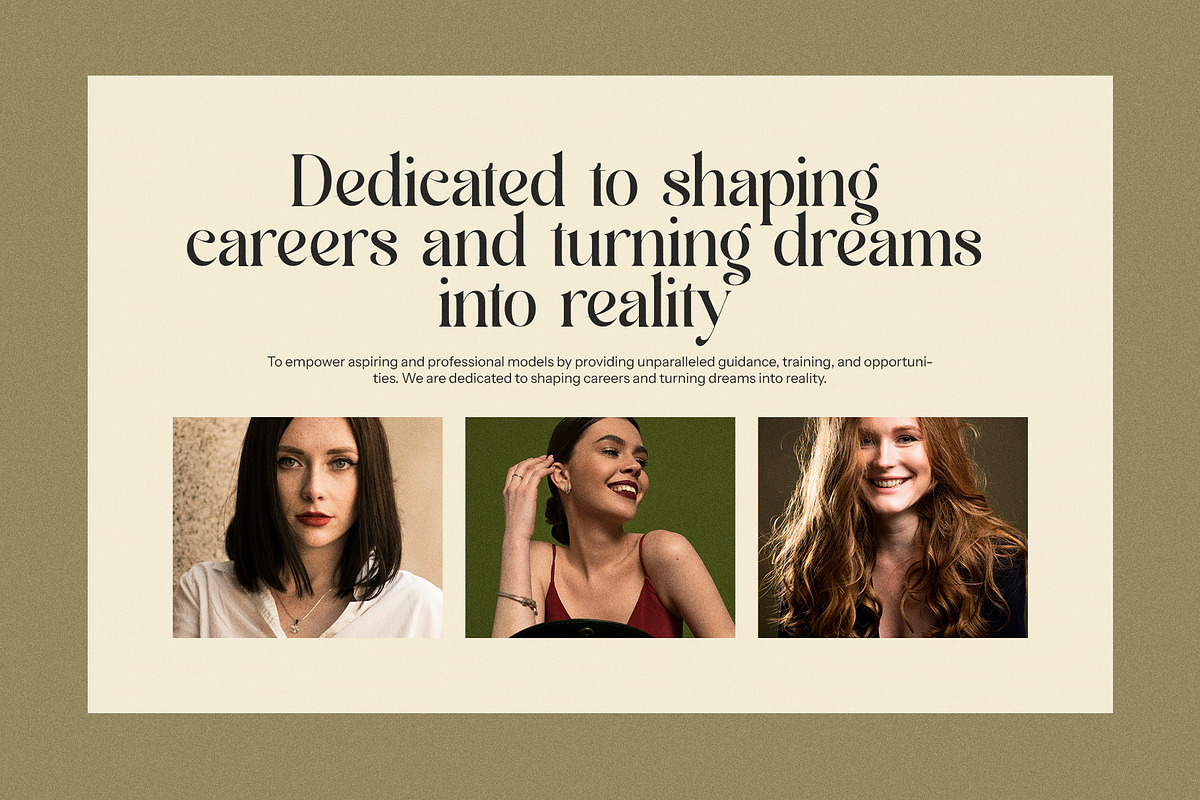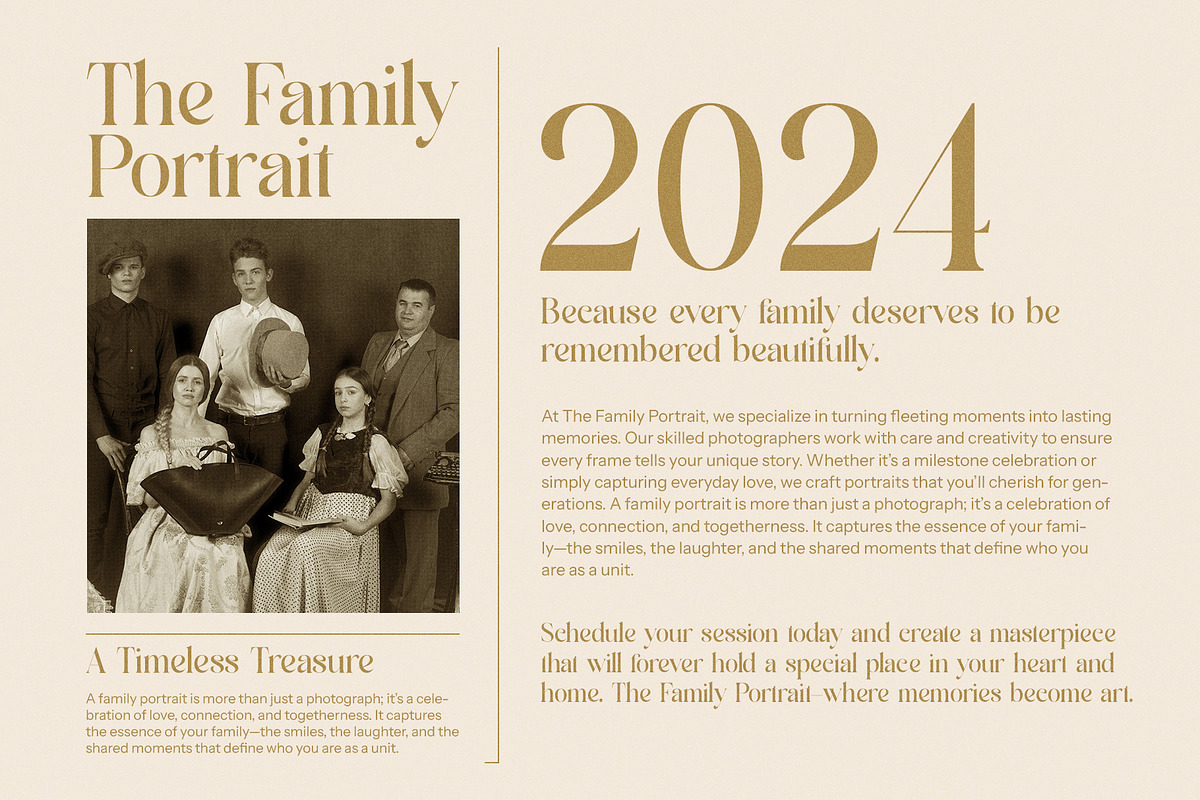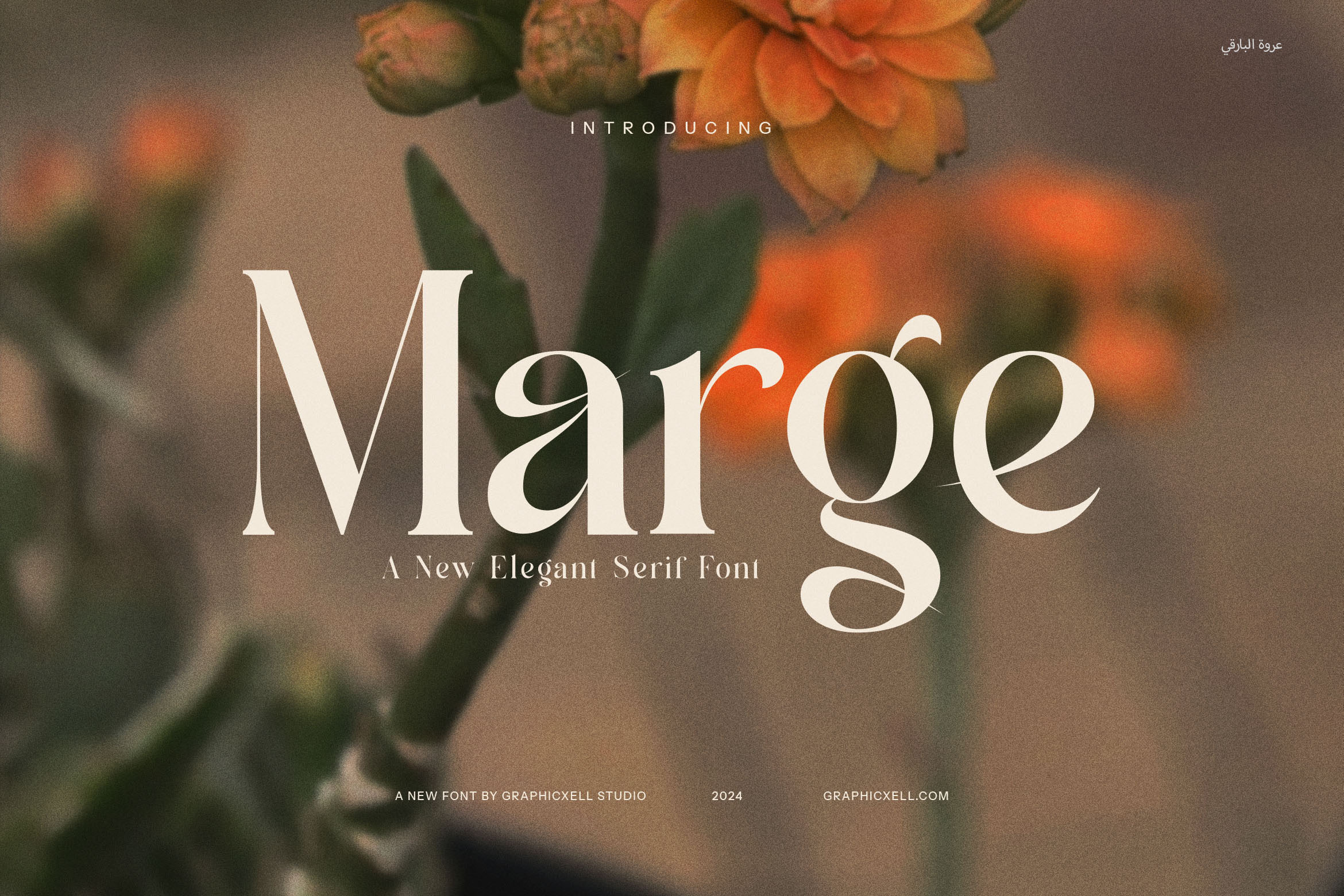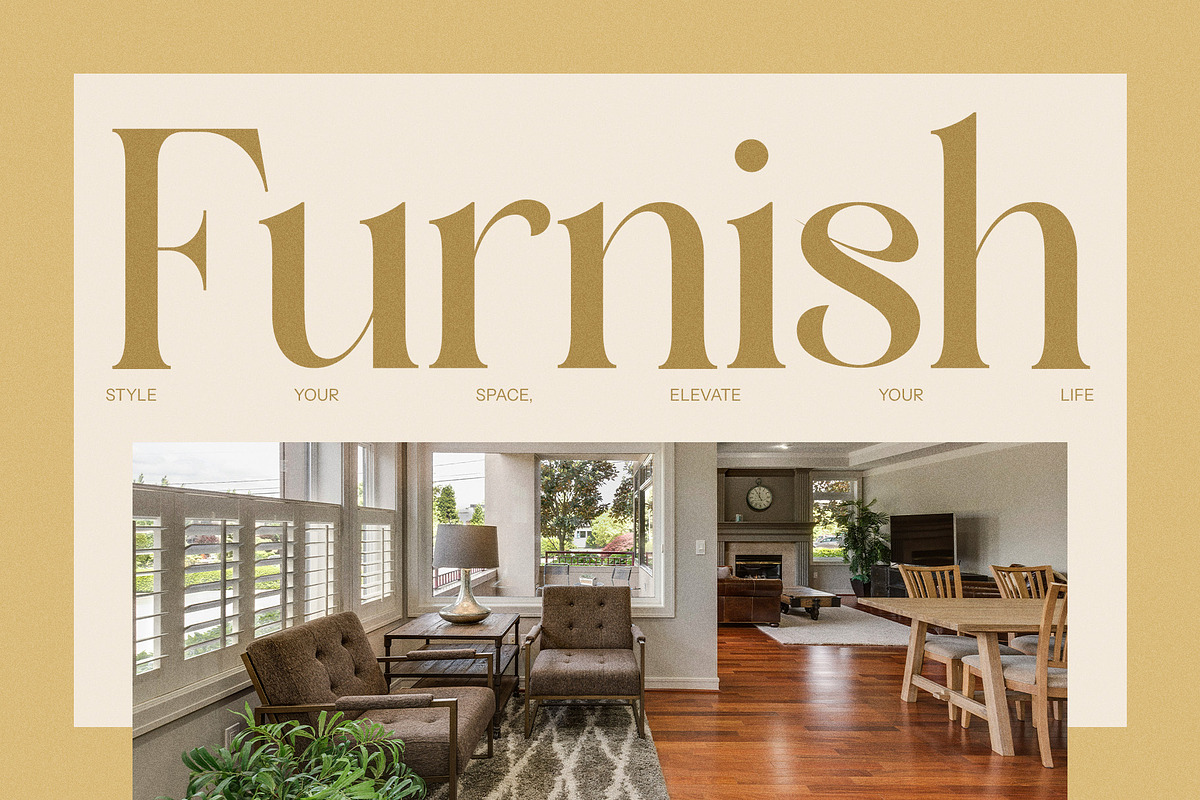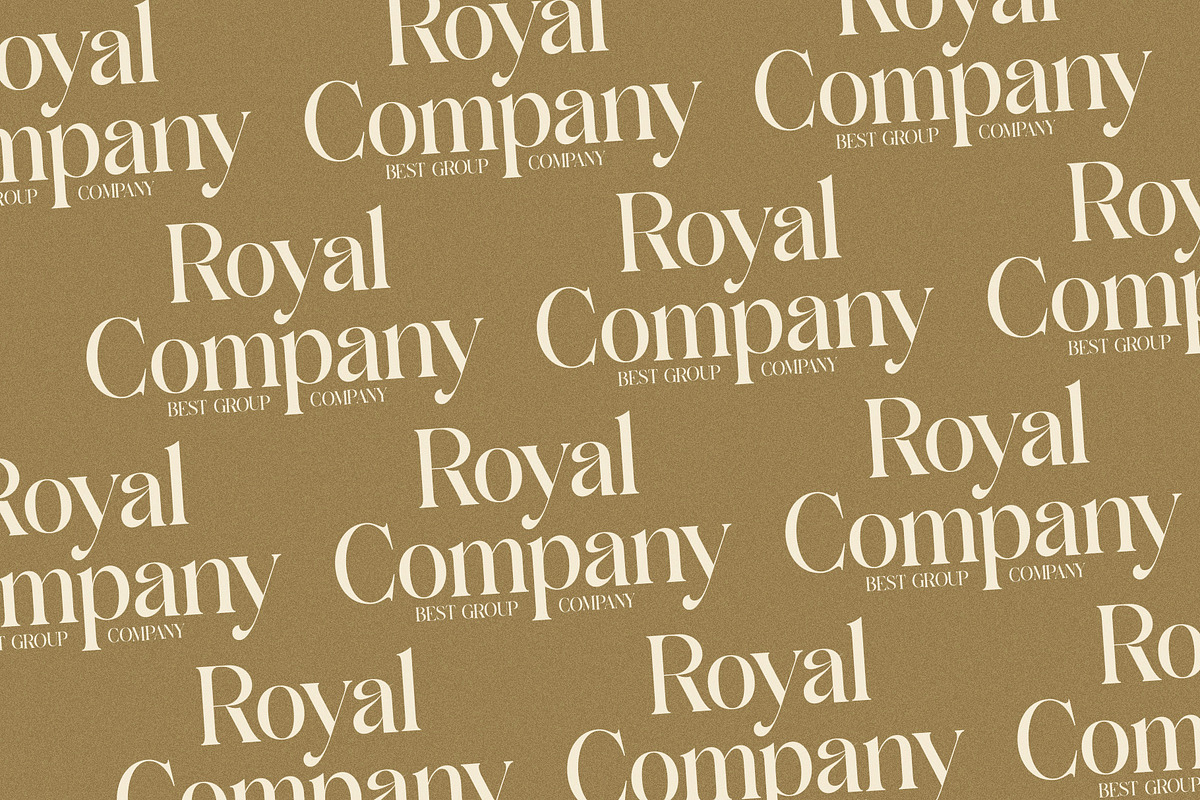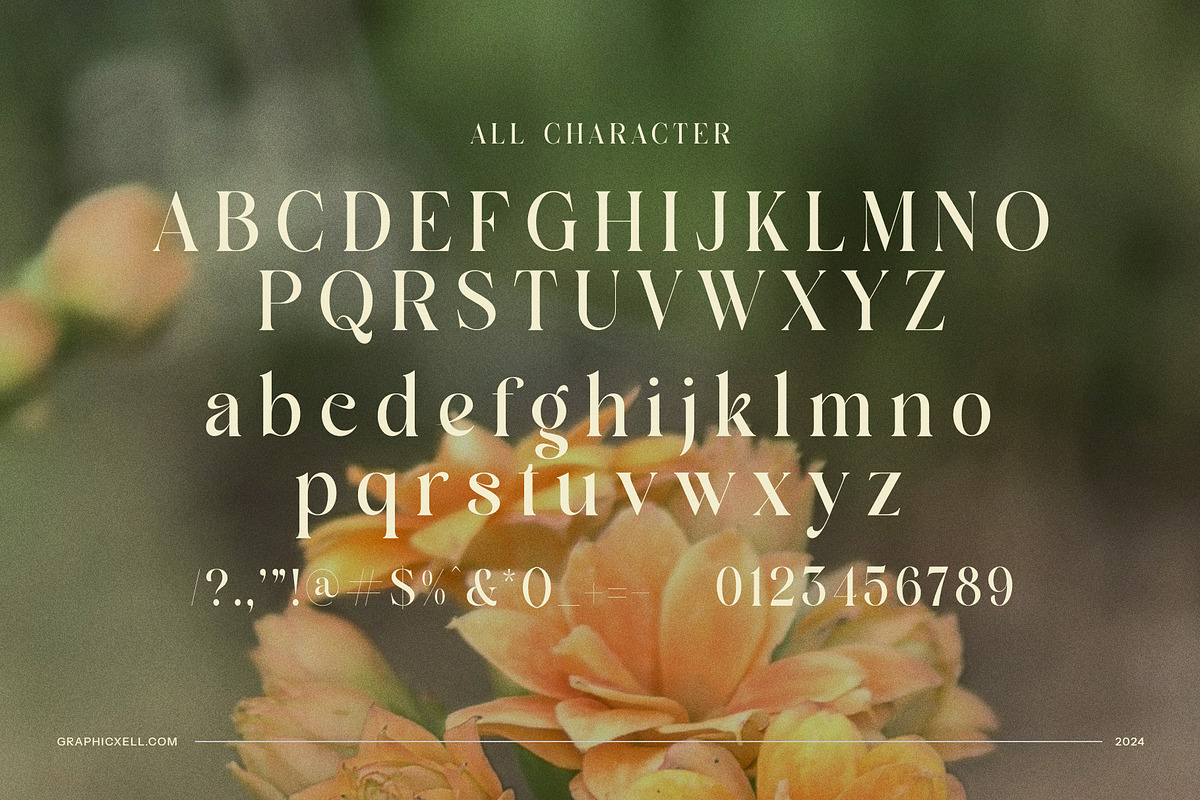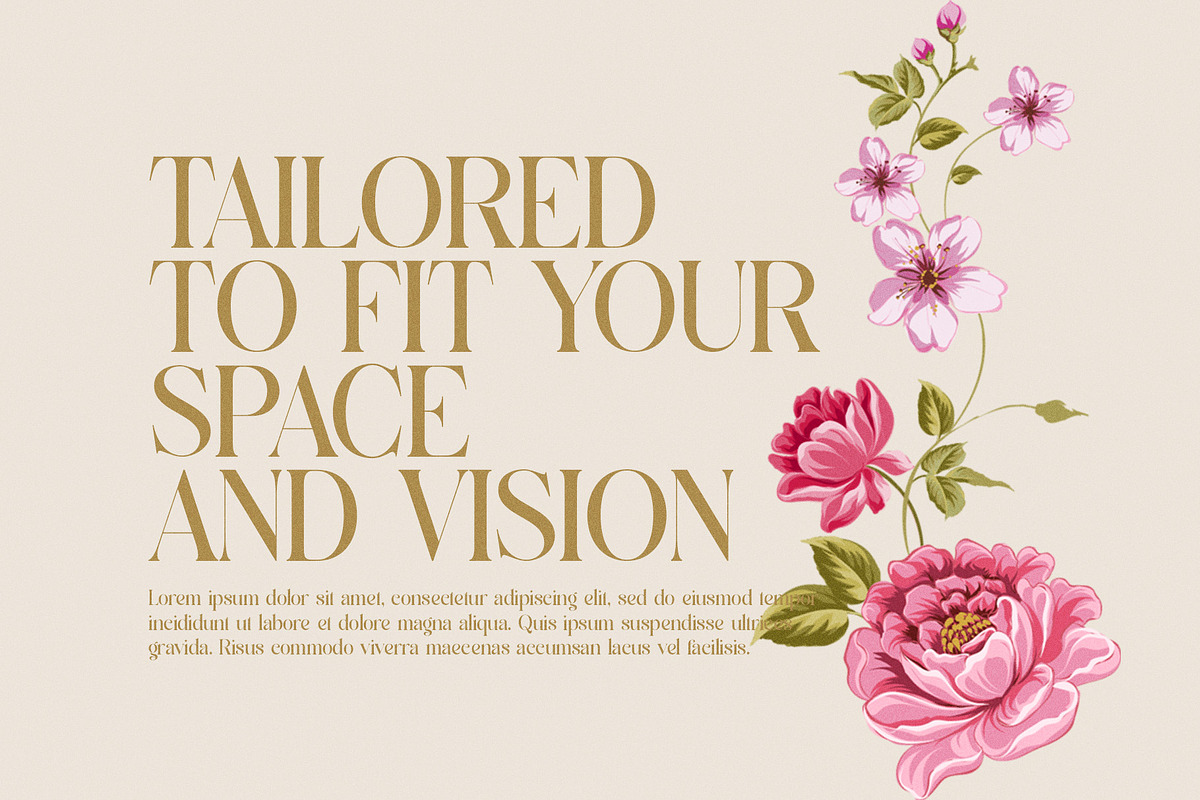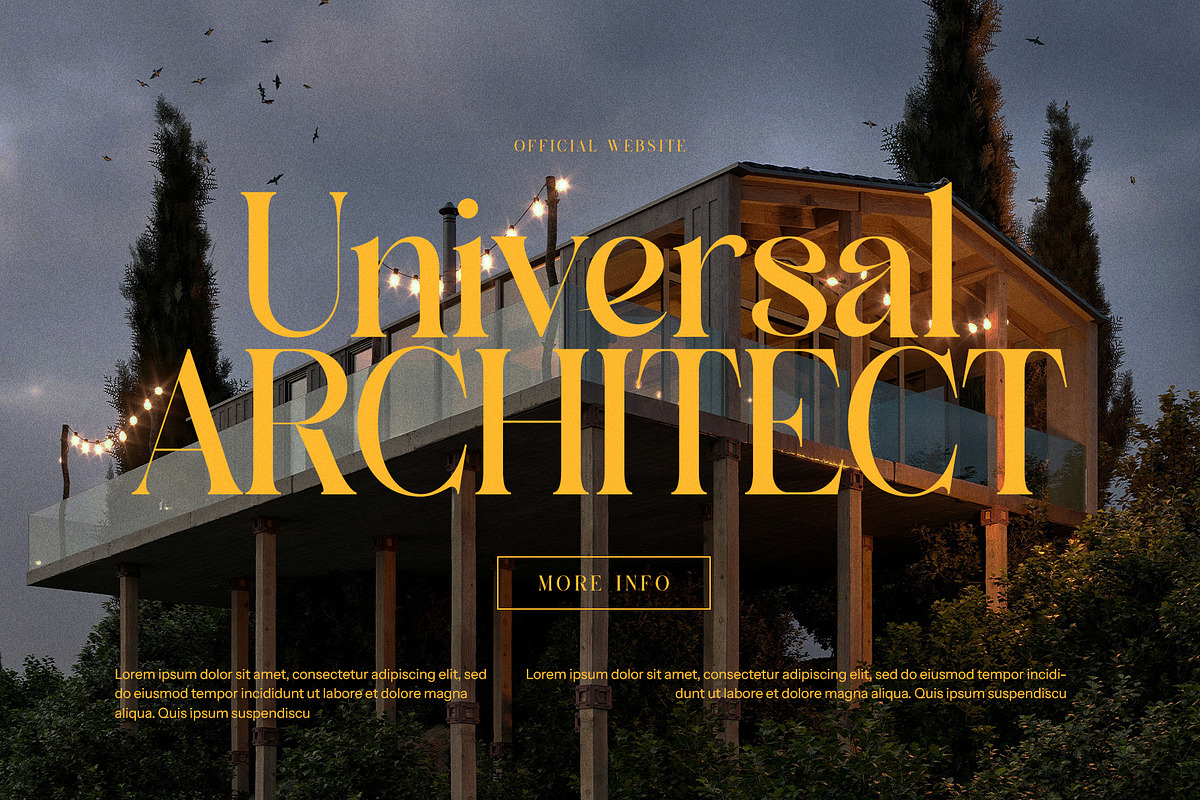
Marge - Elegant Serif Font
Marge Elegant Serif Font is a stunning typeface that combines modern sophistication with classic elegance. Its carefully crafted serifs and balanced letterforms give it a refined yet contemporary appearance, making it an ideal choice for a wide range of design projects. With its unique beauty and timeless style, Marge brings a touch of luxury to any creative endeavor.
Perfect for logo design, branding, and corporate identities, Marge Elegant Serif Font adds a polished, high-end feel to your work. Its versatility shines in applications such as websites, magazines, brochures, and advertisements, where both style and readability are key. Whether you're designing for a boutique, a premium product, or an upscale restaurant, Marge effortlessly elevates the visual impact of your brand.
The elegance of Marge makes it a great fit for fashion, lifestyle, and luxury industries, where attention to detail and refinement are essential. Its elegant structure makes it particularly effective for high-end product packaging, sophisticated magazine layouts, and captivating food branding. The clean lines and timeless appeal ensure that it remains relevant and impactful across different mediums and industries.
Marge Elegant Serif Font is designed for both digital and print use, ensuring that your designs maintain their integrity across a variety of platforms. Whether you're working on a modern website, an elegant invitation, or a striking advertisement, Marge provides the perfect balance of modernity and elegance, making it a must-have font for designers seeking style, luxury, and timeless appeal.